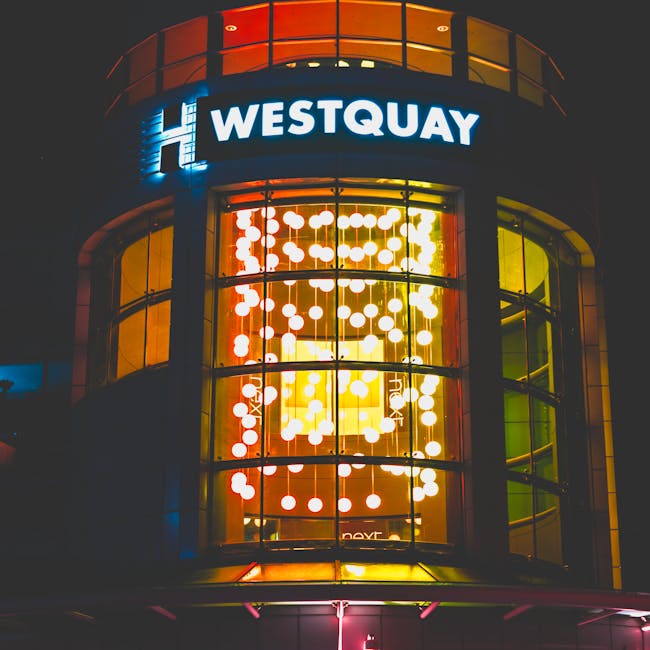
What is Great San Serif Fonts?
In the world of design, Great San Serif Fonts are akin to the versatile black dress in a wardrobe—timeless, adaptable, and essential. These fonts have become a cornerstone in modern design, especially in branding and logo creation. With their clean lines and lack of decorative flourishes, they offer clarity and simplicity, making them a favorite among designers looking to convey a modern, professional image.
Characteristics of Great San Serif Fonts
Clean Lines and Modern Aesthetic
The hallmark of a great San Serif font is its clean lines. Think of it as the minimalist architecture of the font world. Just like the sleek contours of a modern building, these fonts provide an uncluttered aesthetic that speaks volumes through subtlety. This simplicity ensures the message isn’t lost in translation, making them ideal for contemporary branding.
Versatility Across Mediums
San Serif fonts are the chameleons of typography. Whether you’re designing a digital interface or a print advertisement, these fonts adapt effortlessly. Their ability to maintain legibility at various sizes and resolutions makes them invaluable. Imagine them as adaptable actors, seamlessly fitting into any role, be it a website header or a business card. For more insights on their applications, check out Typewolf’s Top 10 Most Popular Sans-Serif Fonts.
Popular Great San Serif Fonts
Helvetica
No discussion about San Serif fonts would be complete without mentioning Helvetica. Born in 1957, this font has left an indelible mark on the world of branding, akin to a legendary performer whose influence spans generations. Its widespread use in logos from major brands like American Apparel to Panasonic underscores its universal appeal and reliability.
Futura
Futura brings a geometric flair to San Serif fonts. Designed in the 1920s, its bold, clean shapes evoke the spirit of modernity and progress. Picture Futura as the Bauhaus movement of fonts—geometrically precise and forward-thinking.
Roboto
Enter Roboto, a font that blends friendliness with professionalism. Developed by Google, it’s the font equivalent of a warm handshake. Roboto’s rounded letters and open curves create an inviting appearance, making it perfect for user interfaces and digital platforms. For a deeper dive into San Serif fonts, visit MyFonts’ page on Sans Serif Fonts.
Choosing the Right Great San Serif Font for Your Brand
Understanding Brand Personality
Selecting the right font is like choosing the right outfit for an event—it should reflect the occasion and the wearer’s personality. Each San Serif font carries its own tone and message. Whether it’s the authoritative presence of Helvetica or the approachable nature of Roboto, understanding how these fonts align with your brand’s identity is crucial.
Testing and Feedback
Before committing to a font, consider it akin to test-driving a car. Testing different options with your audience can provide valuable feedback. This real-world input ensures the chosen font resonates with the intended message and audience. Engaging with platforms like Reddit’s graphic design community can offer diverse perspectives and insights.
Great San Serif Fonts are more than just a design choice; they’re a strategic asset in brand and logo design. Their blend of simplicity, readability, and versatility makes them indispensable in conveying clear, impactful messages. As the design landscape continues to evolve, these fonts stand as stalwarts—timeless, adaptable, and perpetually relevant in the art of communication.